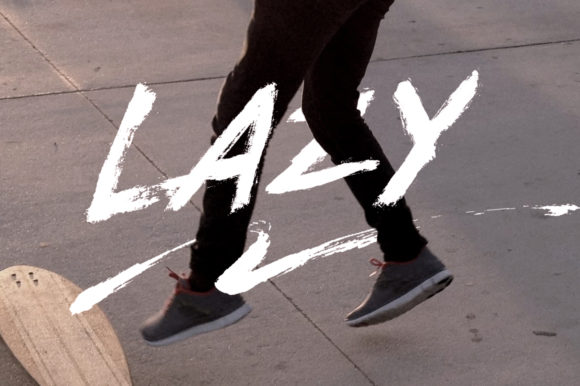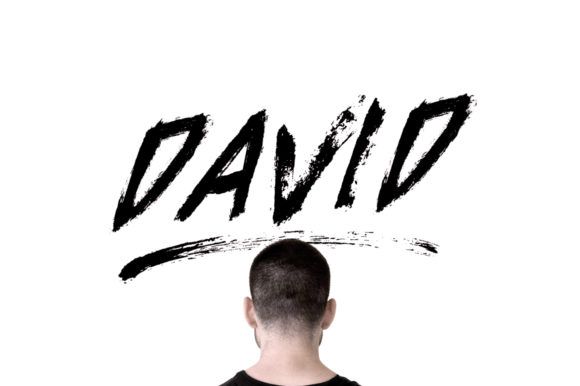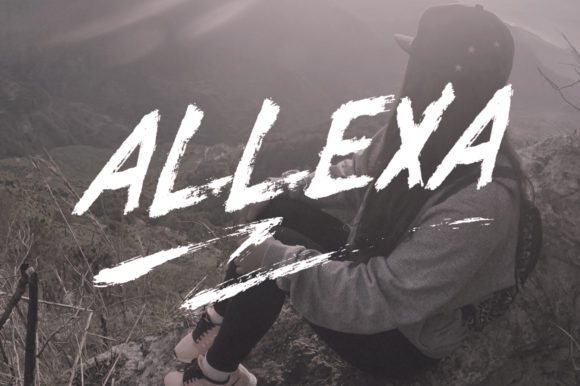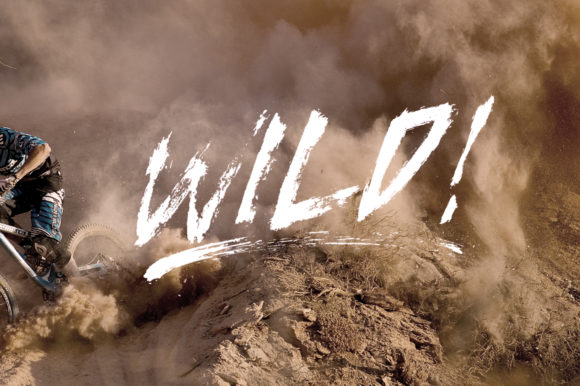
Introducing Axwell Font: A Dramatic Brushed Display Font
Are you looking for a font that exudes power and drama? Look no further than Axwell Font. This brushed display font is perfect for designers and crafters who want to add a touch of intensity to their designs. With its bold and rugged appearance, Axwell Font is ideal for a variety of projects, from posters and flyers to logos and branding materials.
The Characteristics of Axwell Font
Axwell Font is a dramatic brushed display font that looks both powerful and a bit scary. Its bold, rugged appearance is perfect for designs that require a strong and intense look. The font features rough, uneven strokes that give it a hand-painted feel, making it perfect for designs that require a personal touch.
What Makes Axwell Font Stand Out
So, what makes Axwell Font stand out from other fonts? Here are a few key characteristics that make it a unique and valuable addition to any designer’s toolkit:
- Bold and Dramatic: Axwell Font is a bold and dramatic font that is perfect for designs that require a strong and intense look. Its rugged appearance is sure to grab attention and make a lasting impression.
- Hand-Painted Feel: The font features rough, uneven strokes that give it a hand-painted feel. This makes it perfect for designs that require a personal touch, such as posters, flyers, and logos.
- Versatile: Axwell Font is a versatile font that can be used for a variety of designs, from posters and flyers to logos and branding materials. Its bold appearance makes it perfect for headlines and titles, while its rugged texture adds a touch of personality to any design.
Uses for Axwell Font
Axwell Font is a versatile font that can be used for a variety of designs. Here are a few examples of how you can use Axwell Font in your designs:
- Posters and Flyers: Axwell Font is perfect for posters and flyers that require a bold and attention-grabbing headline. Its rugged texture and bold appearance make it perfect for designs that need to stand out.
- Logos and Branding Materials: Axwell Font can be used to create bold and memorable logos and branding materials. Its unique texture and rugged appearance make it perfect for companies that want to stand out from the crowd.
- Social Media Graphics: Axwell Font can be used to create eye-catching social media graphics that are sure to grab attention. Its bold appearance and rugged texture make it perfect for designs that require a strong and intense look.
Tips for Using Axwell Font
Here are a few tips for using Axwell Font in your designs:
- Use it sparingly: Axwell Font is a bold font that can be overwhelming if used too much. Use it sparingly to add emphasis to your designs.
- Pair it with a simple font: Axwell Font is a bold font that can be paired with a simple font to create a striking contrast. Try pairing it with a clean sans-serif font to create a bold and modern look.
- Experiment with colors: Axwell Font looks great in a variety of colors, from bold and bright to muted and earthy. Experiment with different colors to find the perfect look for your design.
Axwell Font is a dramatic brushed display font that is perfect for designers and crafters who want to add a touch of intensity to their designs. Its bold and rugged appearance makes it ideal for a variety of projects, from posters and flyers to logos and branding materials. With its hand-painted feel and versatile design, Axwell Font is a valuable addition to any designer’s toolkit.
Whether you’re a seasoned designer or just starting out, Axwell Font is a great choice for any project that requires a bold and attention-grabbing look. So why not give it a try and see how it can add a touch of drama and intensity to your designs?